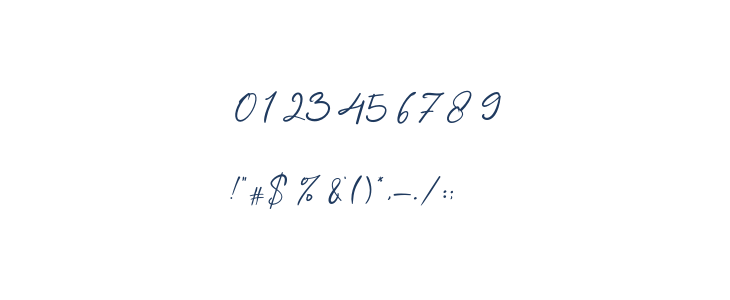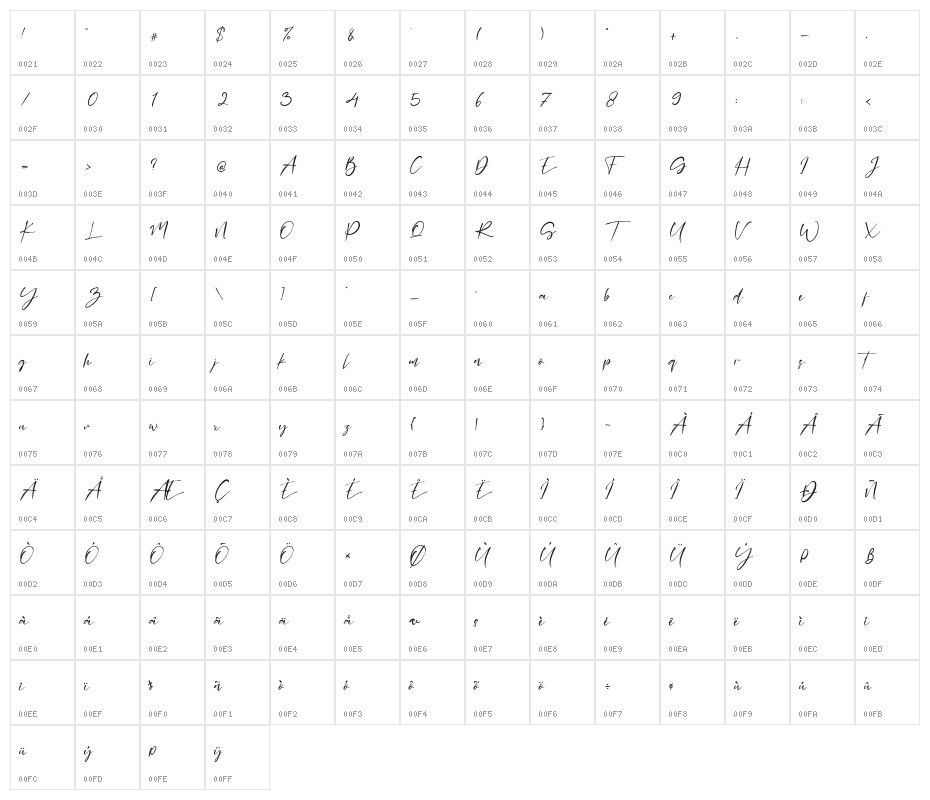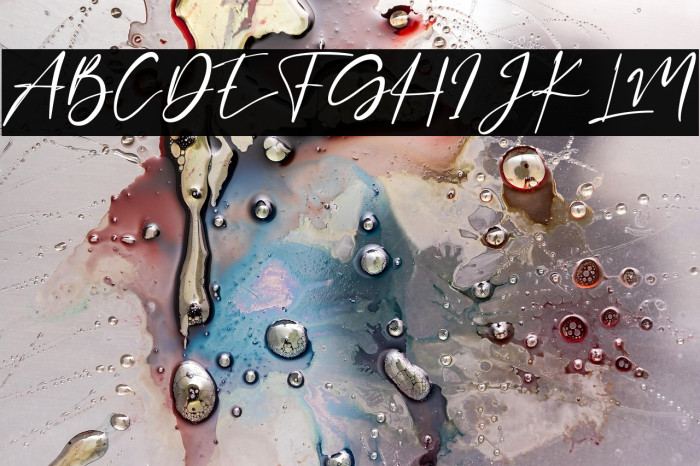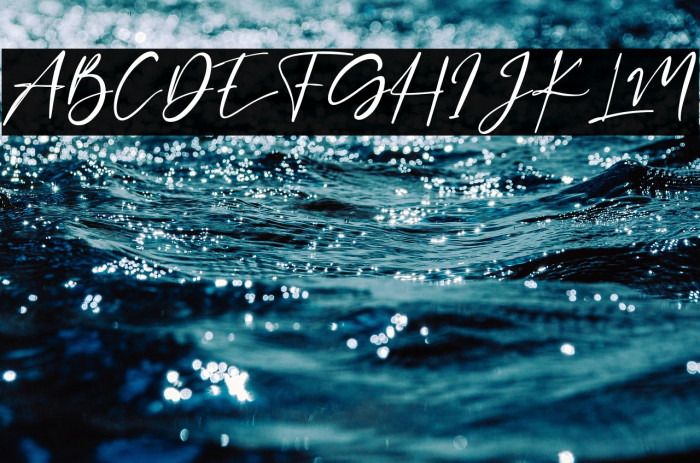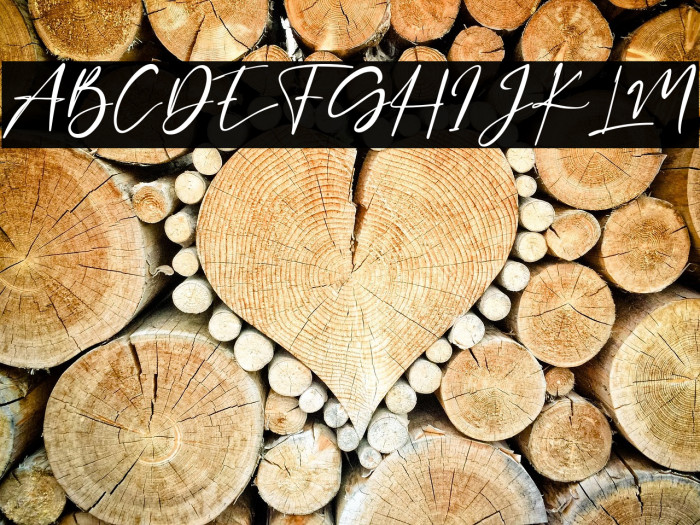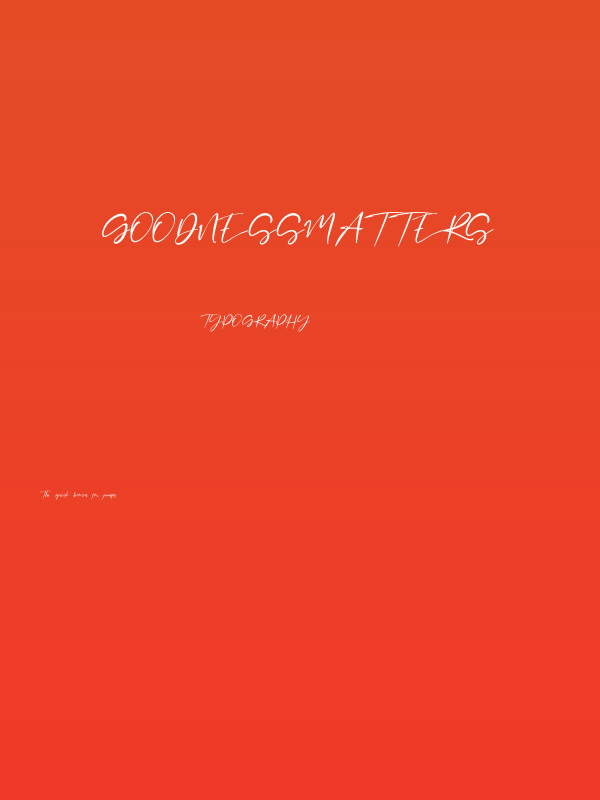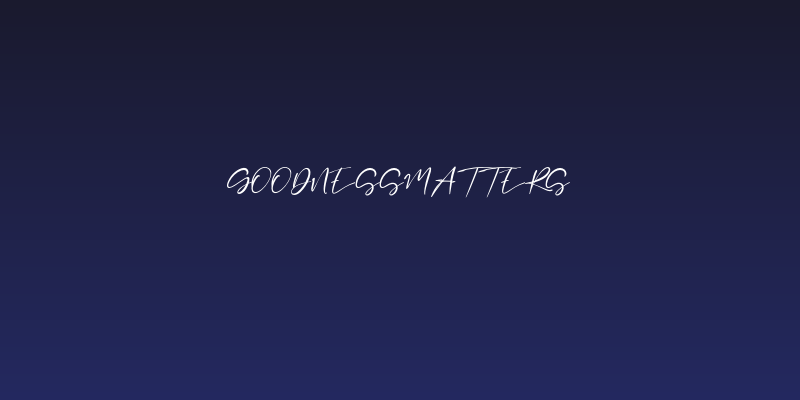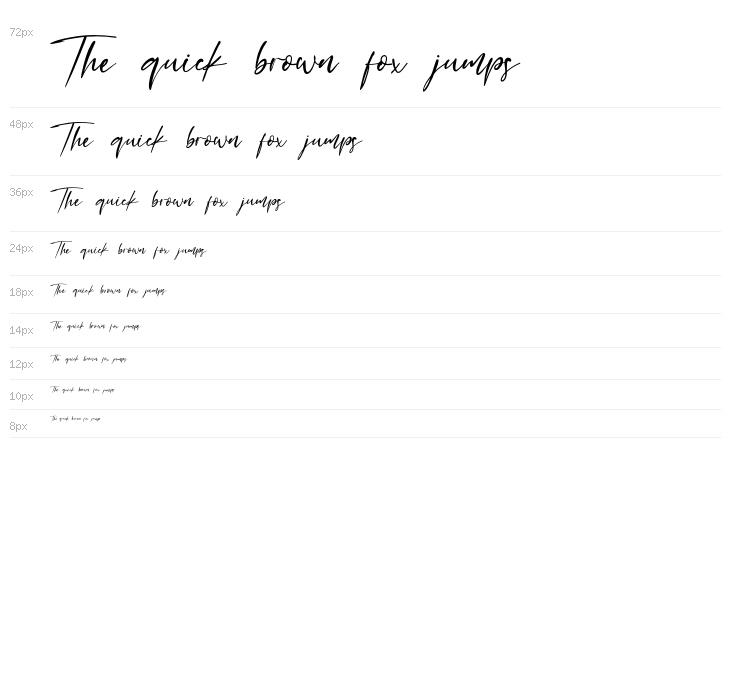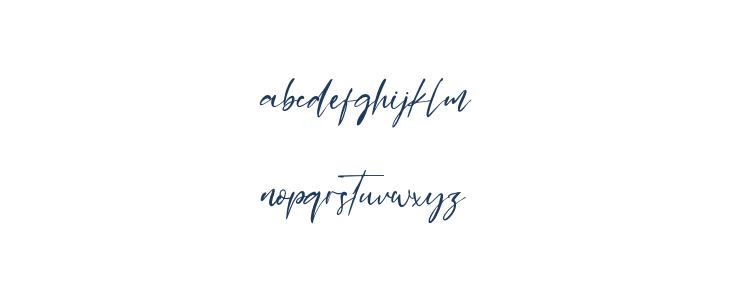
GoodnessMatters Font
GoodnessMatters Description
This font features a dynamic and elegant handwritten style, characterized by fluid and graceful strokes. The uppercase letters are bold and slightly slanted, giving a sense of movement and sophistication. The lowercase letters maintain a consistent flow, with some letters extending below the baseline, adding to the font's charm. The numerals are clear and distinct, matching the overall aesthetic of the font. Special characters are thoughtfully designed, maintaining the font's cohesive look. This font is perfect for projects that require a personal touch, such as invitations, greeting cards, or branding materials.